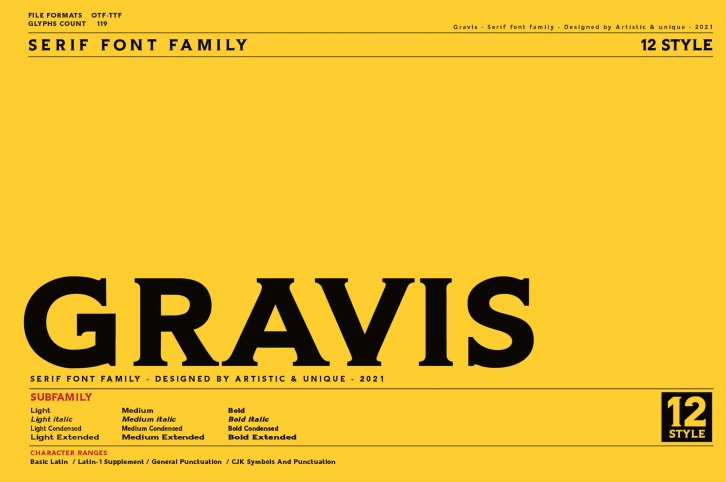
Gravis is a trendy and unique font with an authentic style. It was designed by ARTISTIC AND UNIQUE and it's a great choice for creative people who need such a font. It was released on April 25, 2021 and the file size is 11.87 MB. Gravis will add an organic vibe to any design idea!